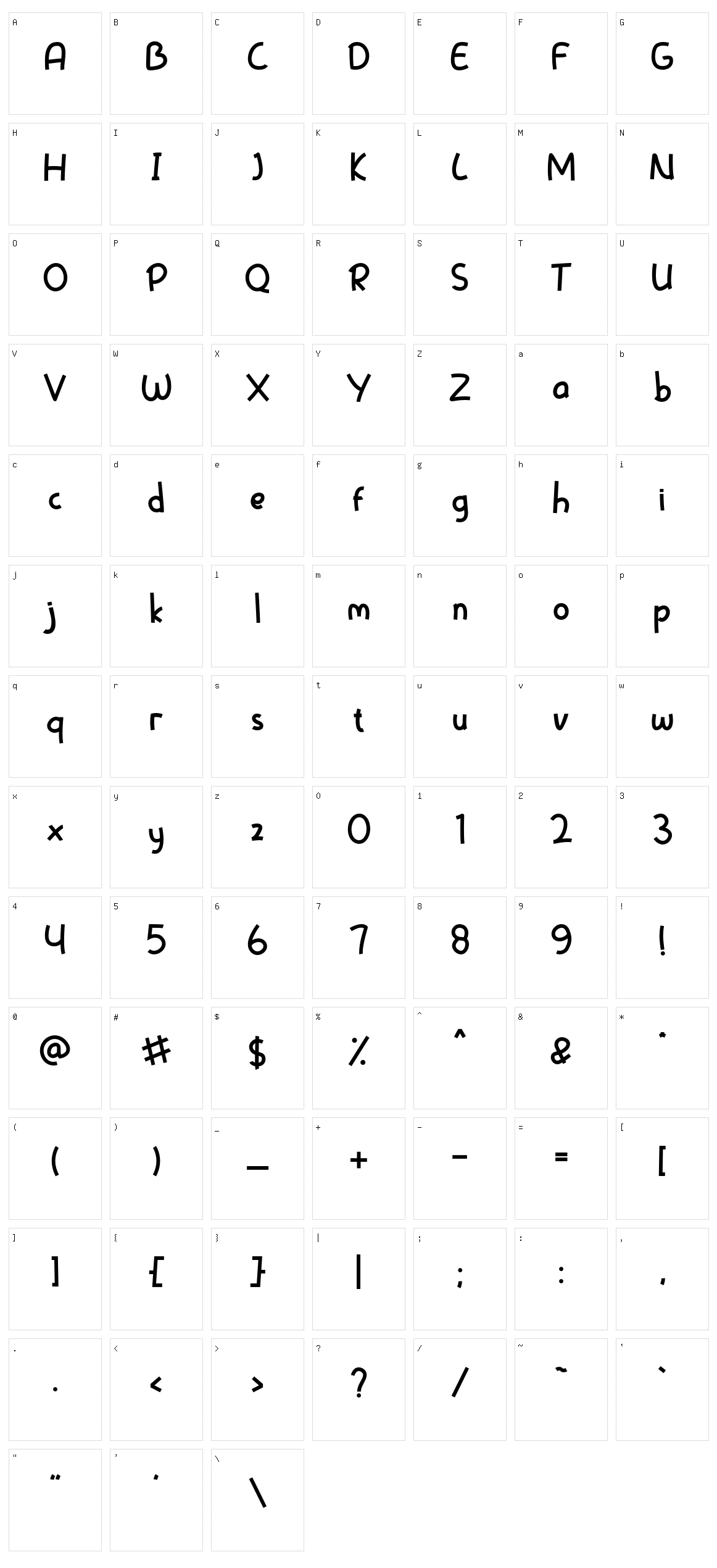
The free font Rafa Kids is carefully designed by Mustofa Nur Sidiq, showcasing a thoughtful balance of creativity and usability and falls under the Cartoon font style. When you download the ZIP file, it contains only 25.83 KB of font files, making it lightweight and quick to download. Please review the license details below to understand permitted usage and distribution rights. If license information is not available, we recommend using this font for personal projects only or contacting the author directly for commercial usage permissions.